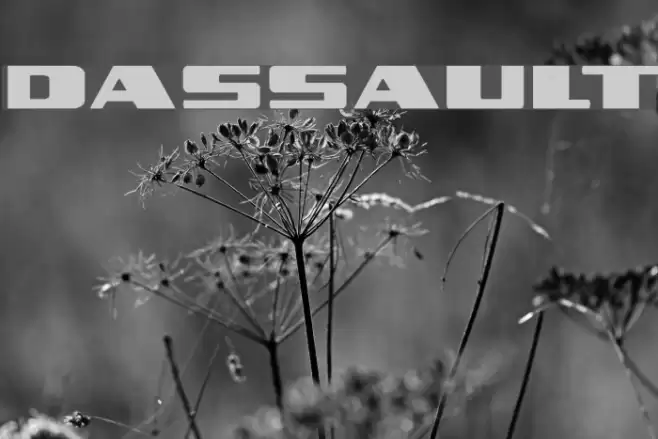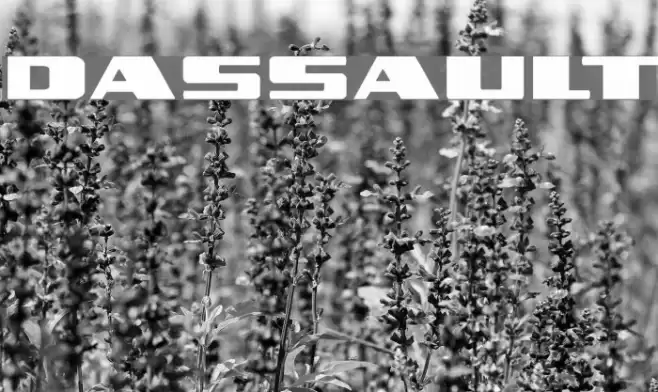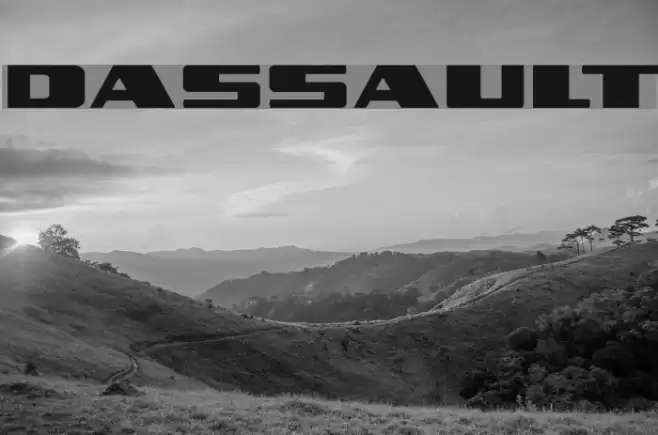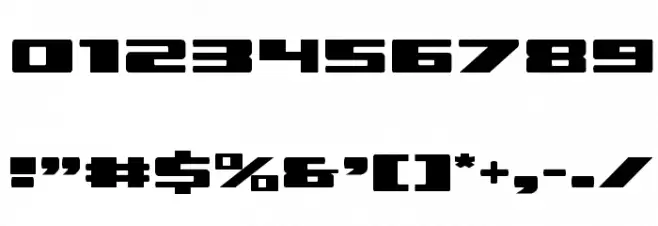
Dassault Font
Dassault Description
This font features a bold, geometric design with a strong presence. The characters are constructed with sharp angles and a blocky appearance, giving it a futuristic and industrial feel. The uppercase letters are uniform in height, while the lowercase letters maintain a consistent style, contributing to a cohesive look. Numbers and special characters are designed with the same angular and bold characteristics, ensuring readability and impact. The overall design is striking and modern, suitable for projects that require a strong visual statement.
A bold, geometric font with a futuristic and industrial style from Uncategorized fonts.
- Proposed Projects: Ideal for branding, posters, video game graphics, and any project needing a strong, modern aesthetic.